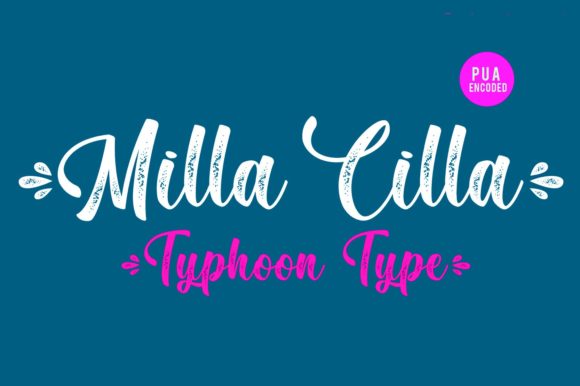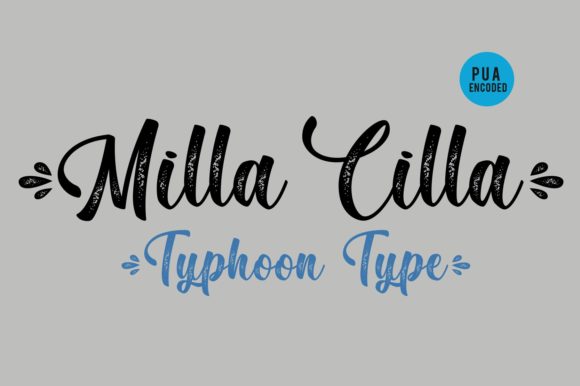
Introduction to Milla Cilla Font
Milla Cilla is a beautiful light handwritten font with a unique feel and a stunning impact.
| 📌 Product Name | Milla Cilla Font |
| 👤 Author | Typhoon Type™ – Suthi Srisopha |
Key Features of Milla Cilla Font
Why Choose Milla Cilla Font?
Milla Cilla Font offers exceptional quality and versatility, making it a valuable addition to your design toolkit. Whether you’re creating for personal projects or commercial use, Milla Cilla Font delivers professional results.